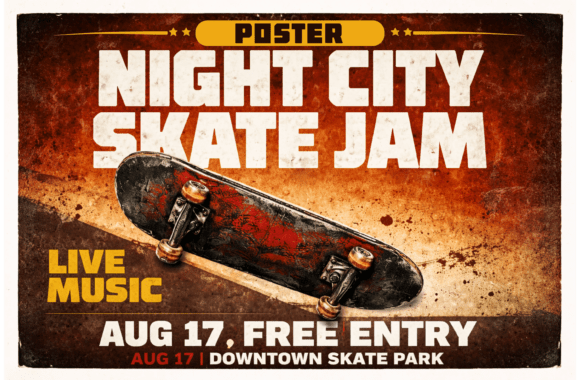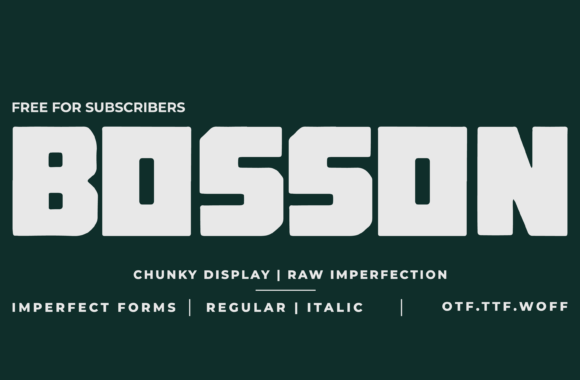
BOSSON FONT
BOSSON FONT is a bold chunky display font designed to make a strong visual impact. With its powerful shapes and slightly raw character, this typeface delivers a confident and energetic style that stands out in headlines, logos, posters, and branding projects.
Whether you are designing for streetwear, gym brands, posters, beer labels, merchandise, or bold social media graphics, Bosson helps your message stand out with maximum impact. Its solid structure and clear readability make it ideal for large titles, packaging designs, apparel graphics, and branding projects that require a bold and memorable typographic style